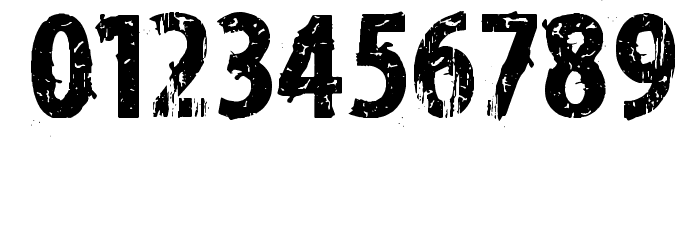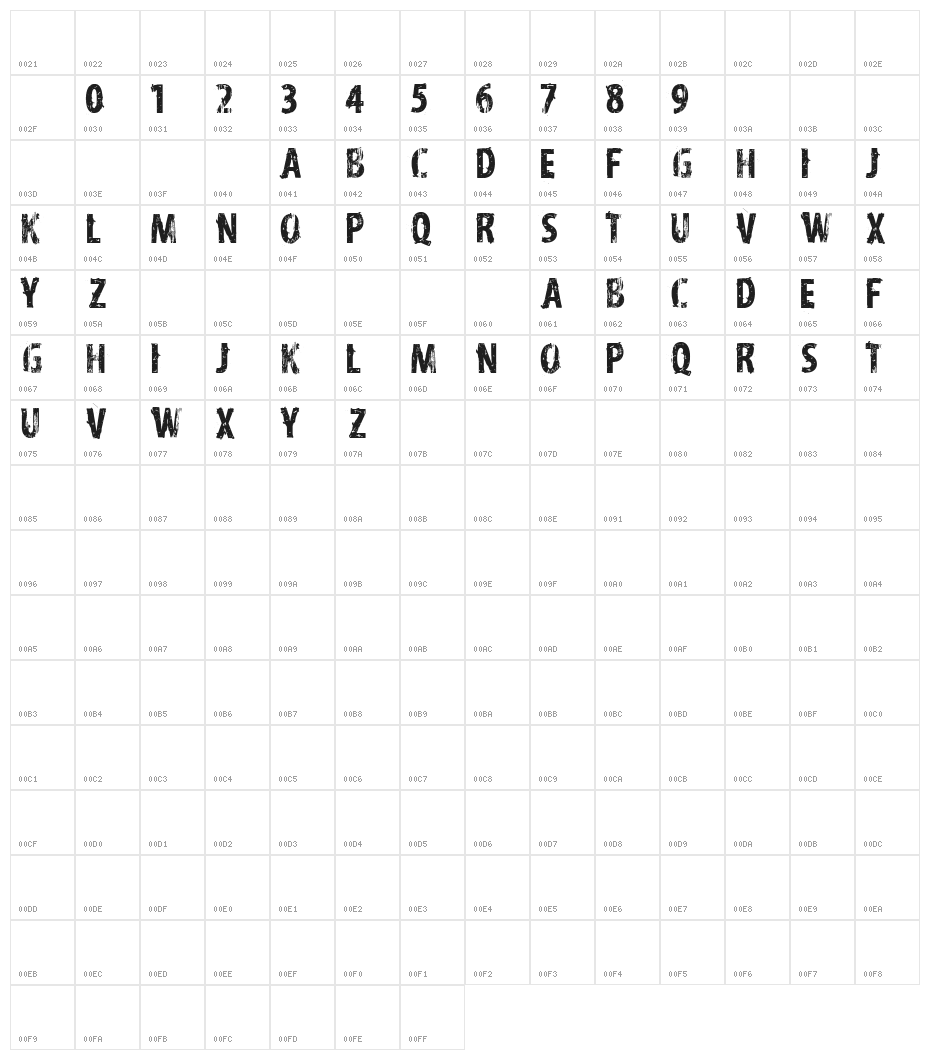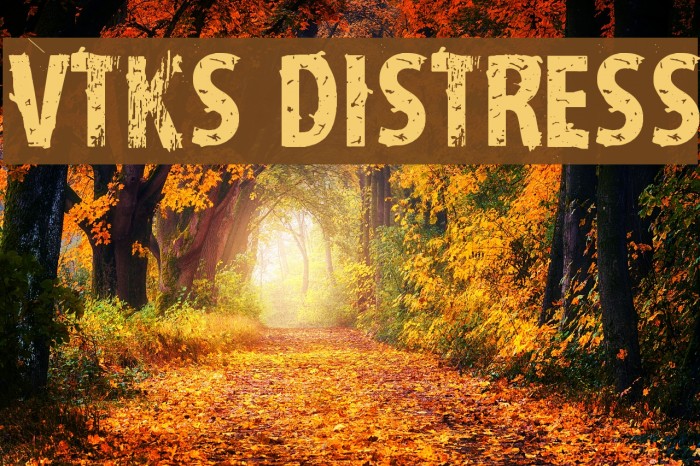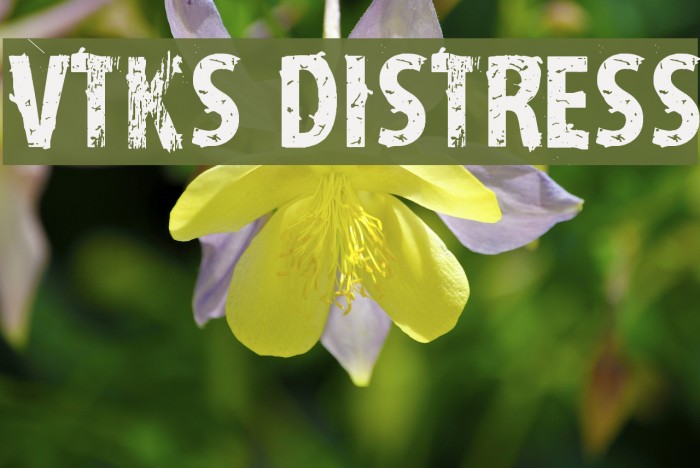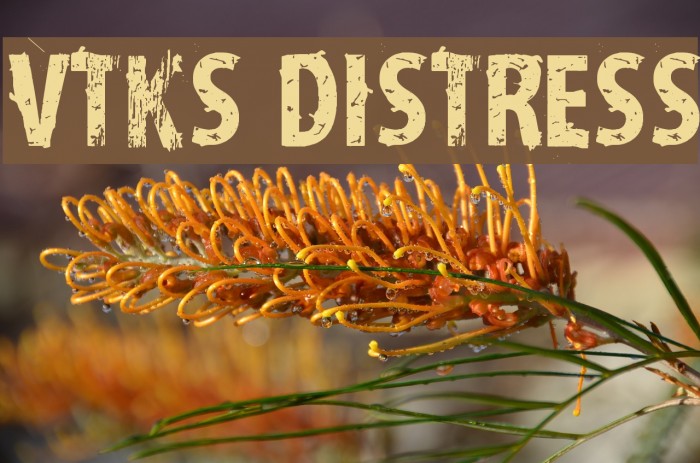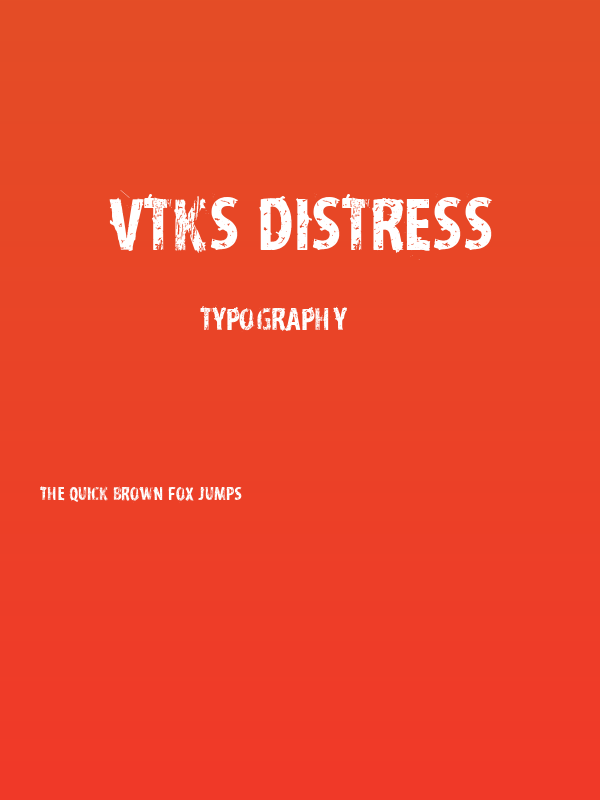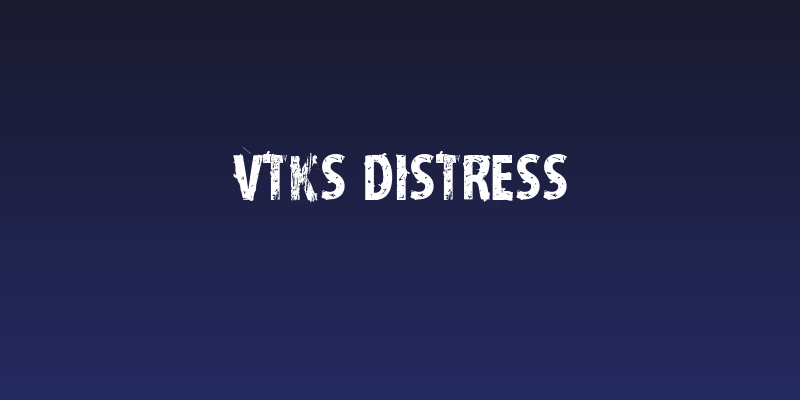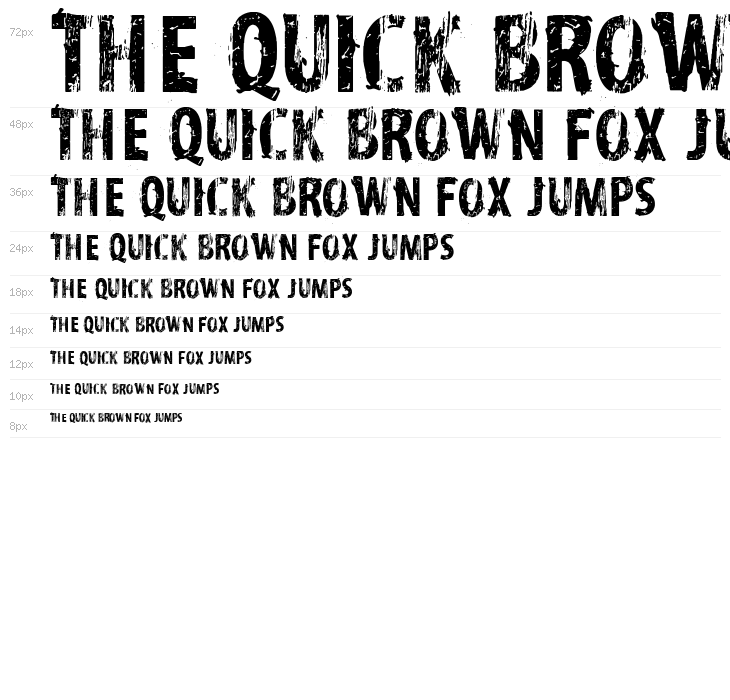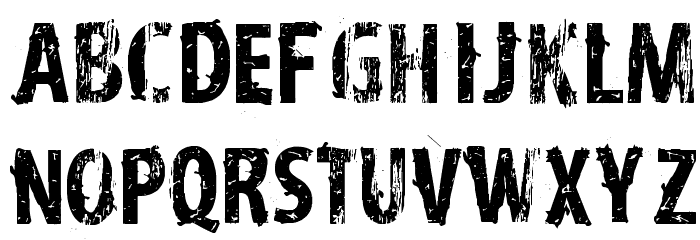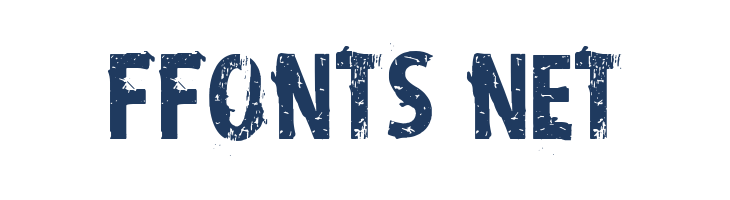
vtks distress Font
vtks distress Description
This font features a distressed, grunge style with a bold and rugged appearance. The characters are heavily textured, giving the impression of wear and tear, as if they have been weathered over time. Each letter and number is uniquely distressed, adding to the overall chaotic and raw aesthetic. The uppercase and lowercase letters maintain a consistent height, while the numbers are slightly shorter, maintaining the font's cohesive look. The rough edges and irregularities in the strokes contribute to its edgy and rebellious feel, making it ideal for projects that require a bold statement.
| Overall Style | Grunge, Distressed |
| Proposed Projects | Ideal for album covers, posters, urban-themed designs, and any project needing a gritty, rebellious look. |